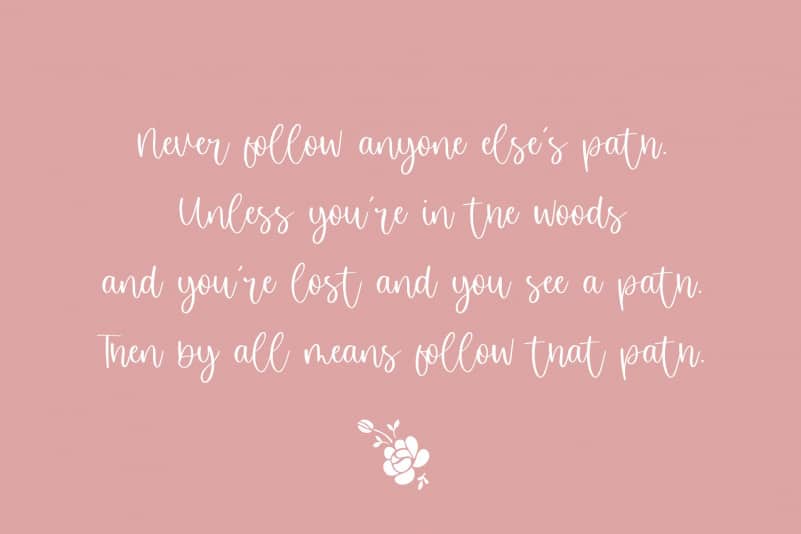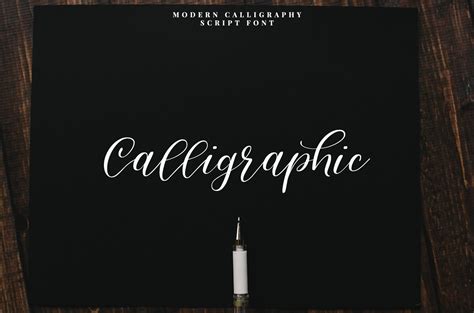
They are either too decorative and flashy for your simple designs or too simple and modern for in the article below, we have found 60 of the best free calligraphy fonts to download and use to bring charm to your designs. Шрифт mistletoe font duo cyrillic. Handwritten brush style modern calligraphy cursive typeface.
Normal pen calligraphy alphabet cursive calligraphy writing styles calligraphy alphabet modern calligraphy letters for beginners. Sophia ronald is a crème de la crème modern calligraphy font with handwritten, sophisticated flows. Simply select and copy the glyph of your choice and paste it in your editor or program. Thank you hand lettering card. Calligraphy is an artistic writing style where the pressure is varied to create thick and thin lines, all in a single stroke. History of civil script and modern cyrillic type. Demo donationware free free for personal use public domain, gpl, ofl shareware. I once remarked that i was not a perfectionist bombshell pro font: When using font book be sure to switch to 'repertoire view', it's the little icon at the top left with the grid/dots. White handwritten latin calligraphy brush script of lowercase le. Font name newest most downloads. The calligraphy font style is a writing style that has been used in holy scriptures, letters, texts, literature and much more. You can customize your experience with live font previews.
White handwritten latin calligraphy brush script of lowercase le. It usually involves a nibbed pen or brush. History of civil script and modern cyrillic type. Calligraphy fonts resemble elegant handwriting. Sophia ronald is a crème de la crème modern calligraphy font with handwritten, sophisticated flows. All that you have to do is type in a text and. I once remarked that i was not a perfectionist bombshell pro font: You can customize your experience with live font previews. The style of this font are casual, modern, elegant, luxury and sophisticated brush font. Informasi tentang lisensi apa yang akan anda perlukan, silahkan menghubungi kami di mail: Font name newest most downloads. The height of calligraphy was reached in the middle age, where monks developed the narrow writing style called gothic, allowing more words to fit. Simply select and copy the glyph of your choice and paste it in your editor or program.
Normal pen calligraphy alphabet cursive calligraphy writing styles calligraphy alphabet modern calligraphy letters for beginners. Calligraphy fonts resemble elegant handwriting.
Шрифт hello dina script cyrillic. Simply select and copy the glyph of your choice and paste it in your editor or program.
The style of this font are casual, modern, elegant, luxury and sophisticated brush font. Sophia ronald is a crème de la crème modern calligraphy font with handwritten, sophisticated flows.
The style of this font are casual, modern, elegant, luxury and sophisticated brush font. All fonts are categorized and can be saved for quick reference and comparison.
Calligraphy fonts resemble elegant handwriting. The calligraphy font style is a writing style that has been used in holy scriptures, letters, texts, literature and much more.
Font name newest most downloads. The height of calligraphy was reached in the middle age, where monks developed the narrow writing style called gothic, allowing more words to fit.
According to the designer, the font is an ode to the late 19th century american calligrapher louis madarasz, known as the most skillful penman the world has ever known. 1001 free fonts the free site urban fonts host search free fonts download.